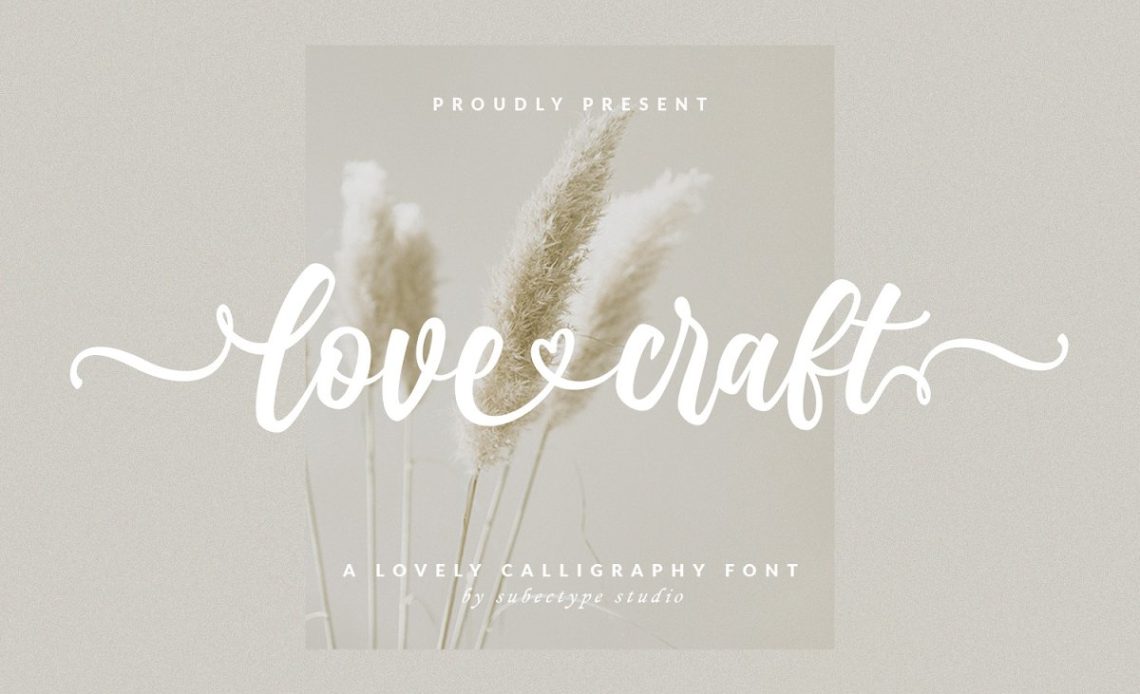
Introducing Love Craft - A Lovely Font, the perfect script font for all your creative needs! Created by the talented Muhammad Nur, Love Craft is a chic and girly calligraphy font that will add a touch of elegance to your designs.
Whether you're creating a wedding invitation, fashion logo, t-shirt design, or social media post, Love Craft's incredibly distinct and timeless style will make your project stand out. This font is a must-have for anyone looking for the best font for Cricut DIY signs.
But Love Craft isn't just limited to those applications. It's also perfect for headline fonts, branding fonts, advertising fonts, signature fonts, stationary fonts, product packaging fonts, label fonts, photography signatures, event fonts, poster fonts, and party fonts. Love Craft is a versatile font that will add a stylish touch to any print or digital media.
What sets Love Craft apart from other fonts is its lovely and charming design that exudes a feminine and delicate touch. This font is perfect for anyone who wants to create spectacular designs that will captivate their audience.
In conclusion, if you're looking for a font that's both charming and stylish, Love Craft - A Lovely Font is the perfect choice for you. Fall in love with its timeless and elegant style and use it to create stunning designs that will leave a lasting impression on your audience.